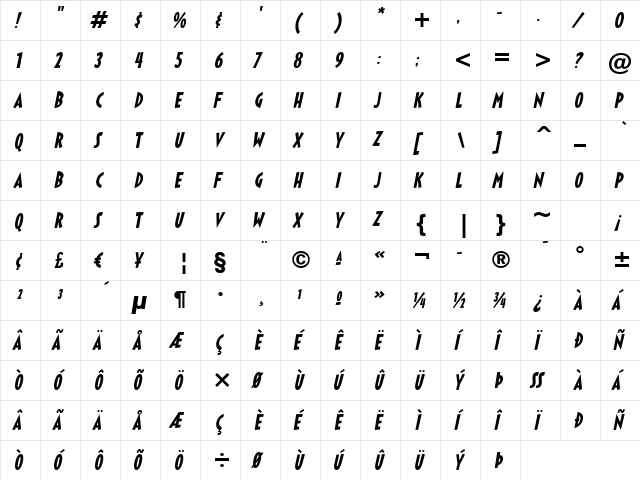
Sticky Moula BTN Oblique
Design Context for Sticky Moula BTN Typeface
Sticky Moula BTN is a composed and adaptable typeface that performs quietly and consistently across a wide range of design contexts. The dynamic lean of this cut emphasises speed and emphasis in any layout.
Pro Tip: Use Sticky Moula BTN for emphasis, pull quotes, and subheadings where its slanted energy can add rhythm to the layout.